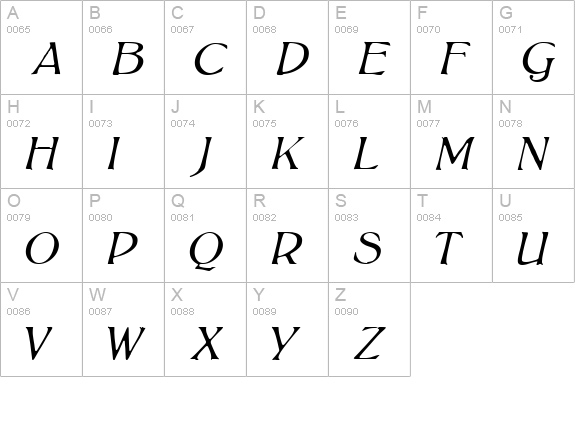
BoltonLightItalic Font Details
BoltonLightItalic is a sophisticated and elegant font that exudes a sense of modernity and refinement. Its delicate curves and slanted appearance give it a unique and stylish look that is perfect for adding a touch of sophistication to any design project. Whether you're creating a logo, invitation, or website, BoltonLightItalic is sure to make a statement. What's even better is that BoltonLightItalic is available for free download at FontsMarket.com. This means you can easily access this beautiful font and incorporate it into your projects without any cost. So why wait? Elevate your designs with the timeless charm of BoltonLightItalic today.